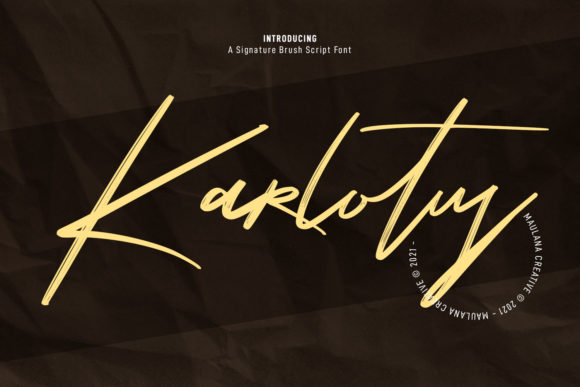
Discover the Enchanting Karlotus Font: Where Elegance Meets Emotional Expression
Prepare to be swept away by the captivating allure of Karlotus, a script font that exudes grace and sophistication. Its delicate, thin letterforms dance across the page, evoking a sense of timeless beauty and romance.
Crafted by the skilled hands of Maulana Creative, Karlotus is a masterpiece designed to elevate your creative endeavors to new heights. Fall head over heels for its undeniable charm and let your imagination soar as you create breathtaking wedding invitations that reflect the love and joy of your special day.
But Karlotus's artistry extends far beyond the traditional confines of wedding stationery. Its versatility knows no bounds, lending itself effortlessly to a myriad of creative projects. Envision your social media posts adorned with eye-catching typography that captivates your audience and leaves a lasting impression. Unleash your inner artist and create stunning stationary art that exudes elegance and sophistication.
With Karlotus at your fingertips, you possess the power to transform ordinary words into extraordinary expressions of emotion. Whether you're a seasoned designer or simply seeking to add a touch of magic to your personal projects, Karlotus is the font that will ignite your creativity and inspire you to create masterpieces that leave an unforgettable mark.
Embrace the allure of Karlotus today and embark on a creative journey where beauty, sophistication, and emotional expression converge. Let its graceful lines guide your imagination and create works of art that will forever be cherished.